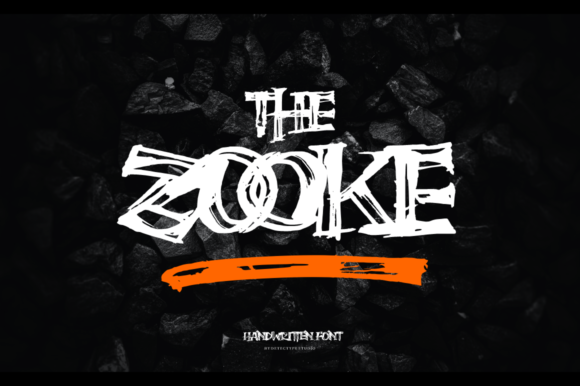
Step into the realm of sophistication and elegance with Zooke Font, a display font masterpiece meticulously crafted to redefine luxury in typography. Inspired by the allure of high-end fashion and the charm of vintage signage, Zooke Font transcends boundaries to redefine visual storytelling.
Experience the allure of a font that exudes opulence and grandeur. Zooke Font's carefully crafted letterforms dance with grace and confidence, leaving a lasting impression on every design it graces. Its rich texture, reminiscent of finely aged leather, adds depth and dimension to your creations, ensuring they command attention and convey a sense of timeless elegance.
Immerse yourself in a world where typography meets art. Zooke Font's intricate details and subtle nuances elevate your designs to new heights. Each character, meticulously designed with precision, carries a story of its own, adding a touch of exclusivity and sophistication to your projects.
Unleash your creativity and let Zooke Font guide you on a journey of visual storytelling. Whether crafting logos that radiate opulence, designing posters that evoke nostalgia, or creating social media posts that demand attention, Zooke Font effortlessly elevates your designs, transforming them into masterpieces of visual communication.
Indulge in the versatility of a font that effortlessly adapts to a myriad of design styles. From the timeless charm of vintage designs to the sleek minimalism of modern aesthetics, Zooke Font seamlessly blends into your vision, becoming an indispensable tool in your creative arsenal. Its versatility knows no bounds, allowing you to effortlessly create designs that resonate with your audience, leaving an unforgettable impact.
Join the ranks of discerning designers who recognize the power of typography as an art form. Embrace Zooke Font, and embark on a journey of visual storytelling that captivates and inspires. Let your designs exude confidence, sophistication, and an air of exclusivity that speaks volumes about your commitment to excellence.